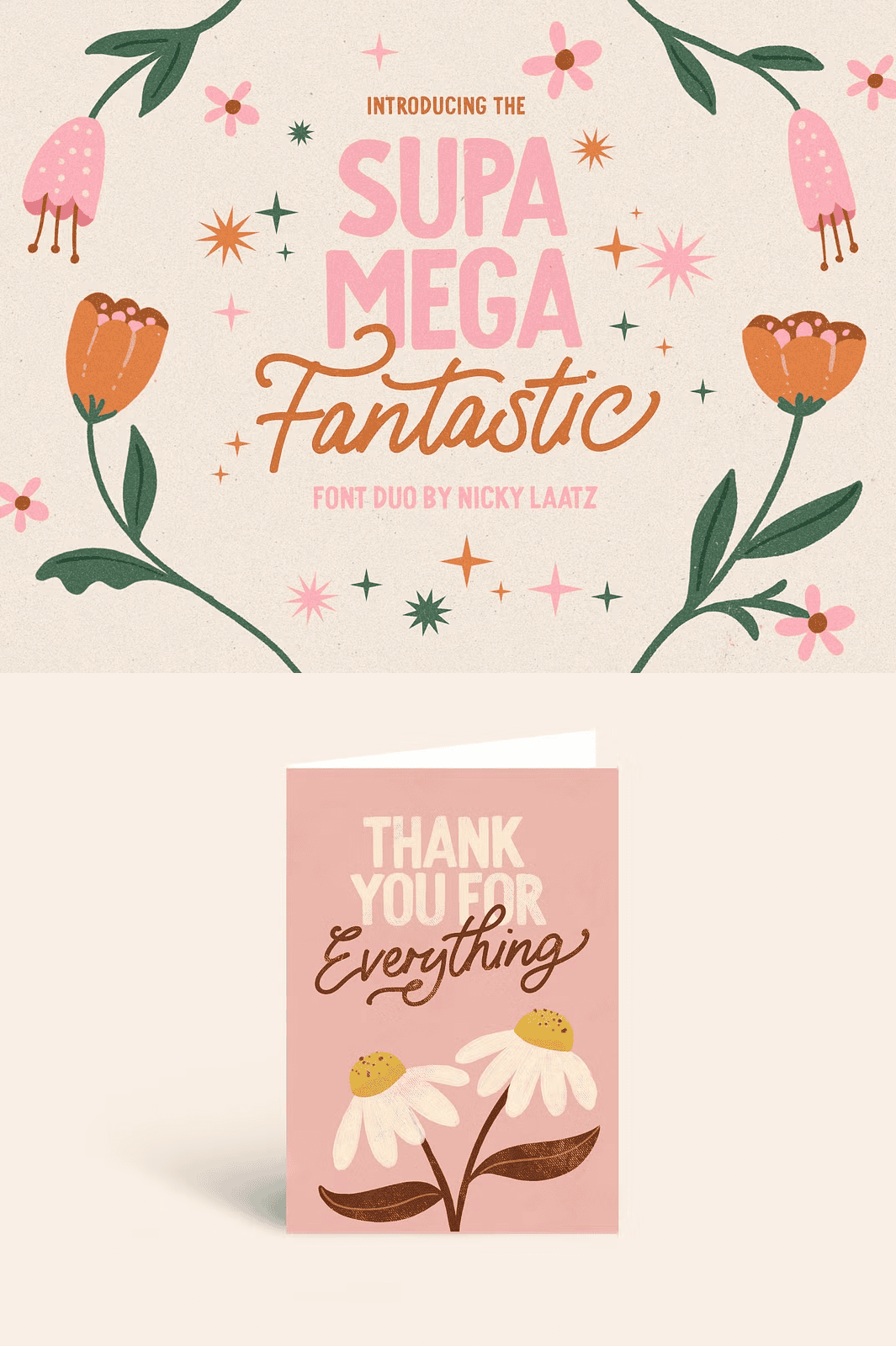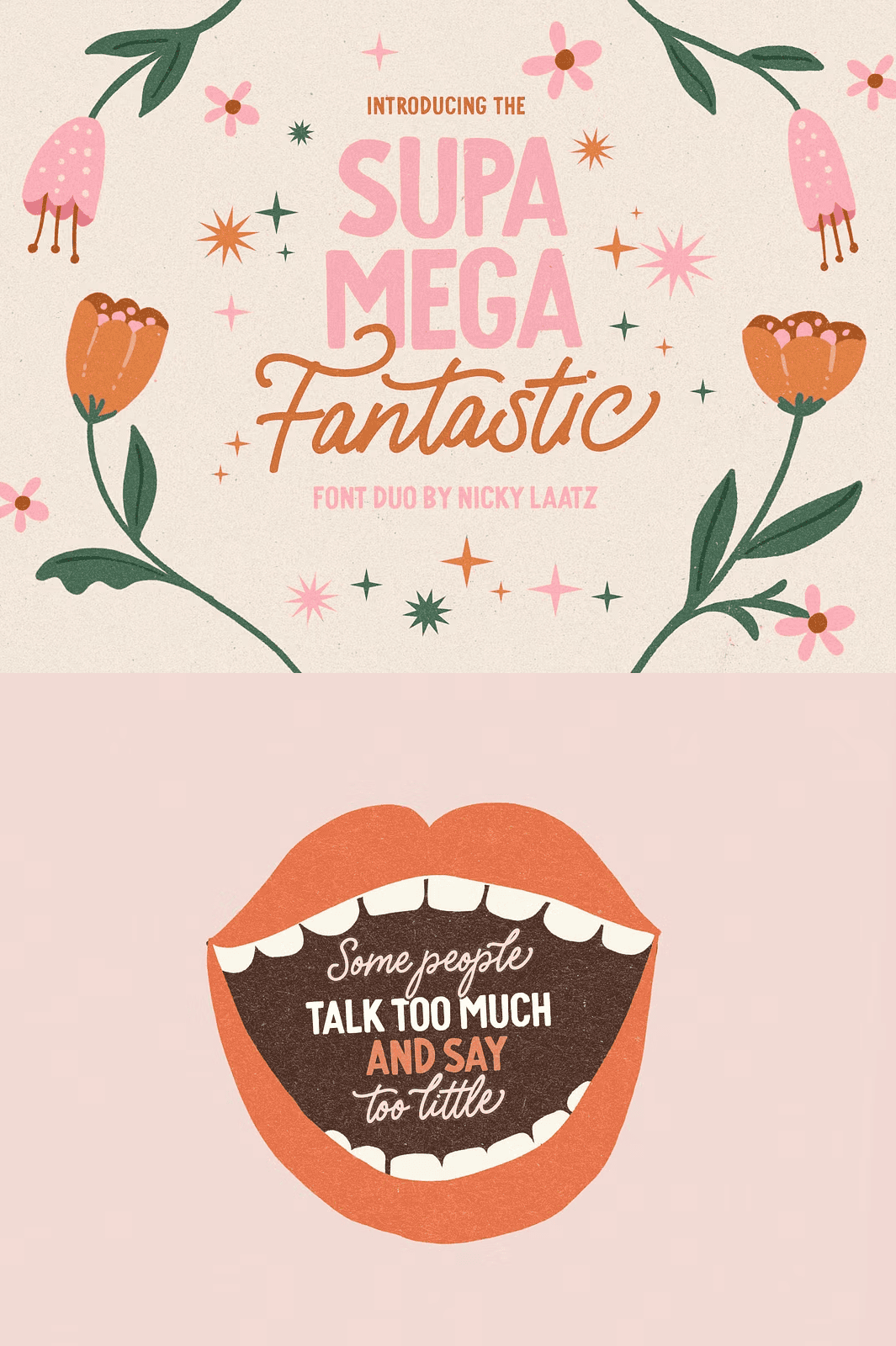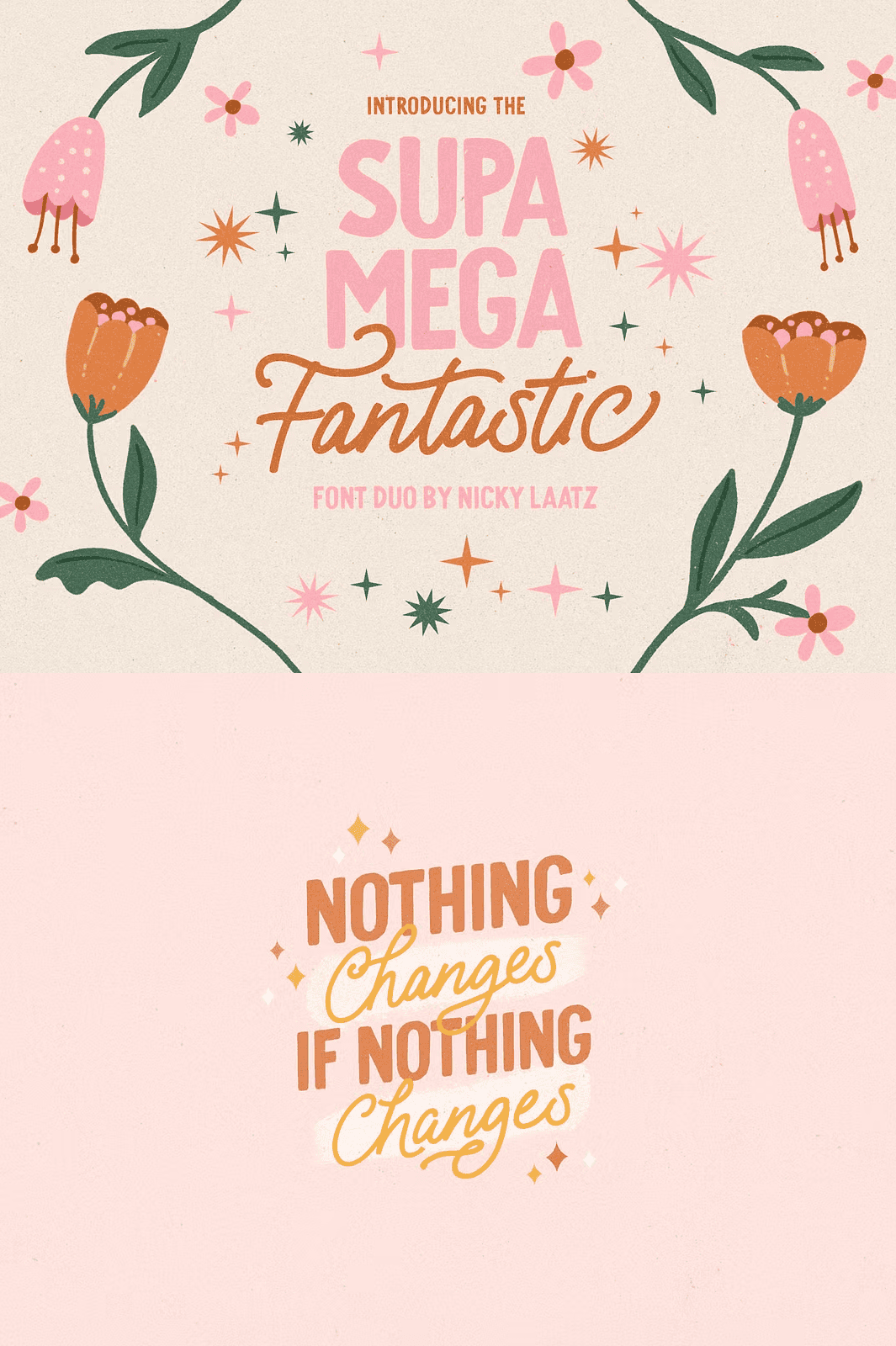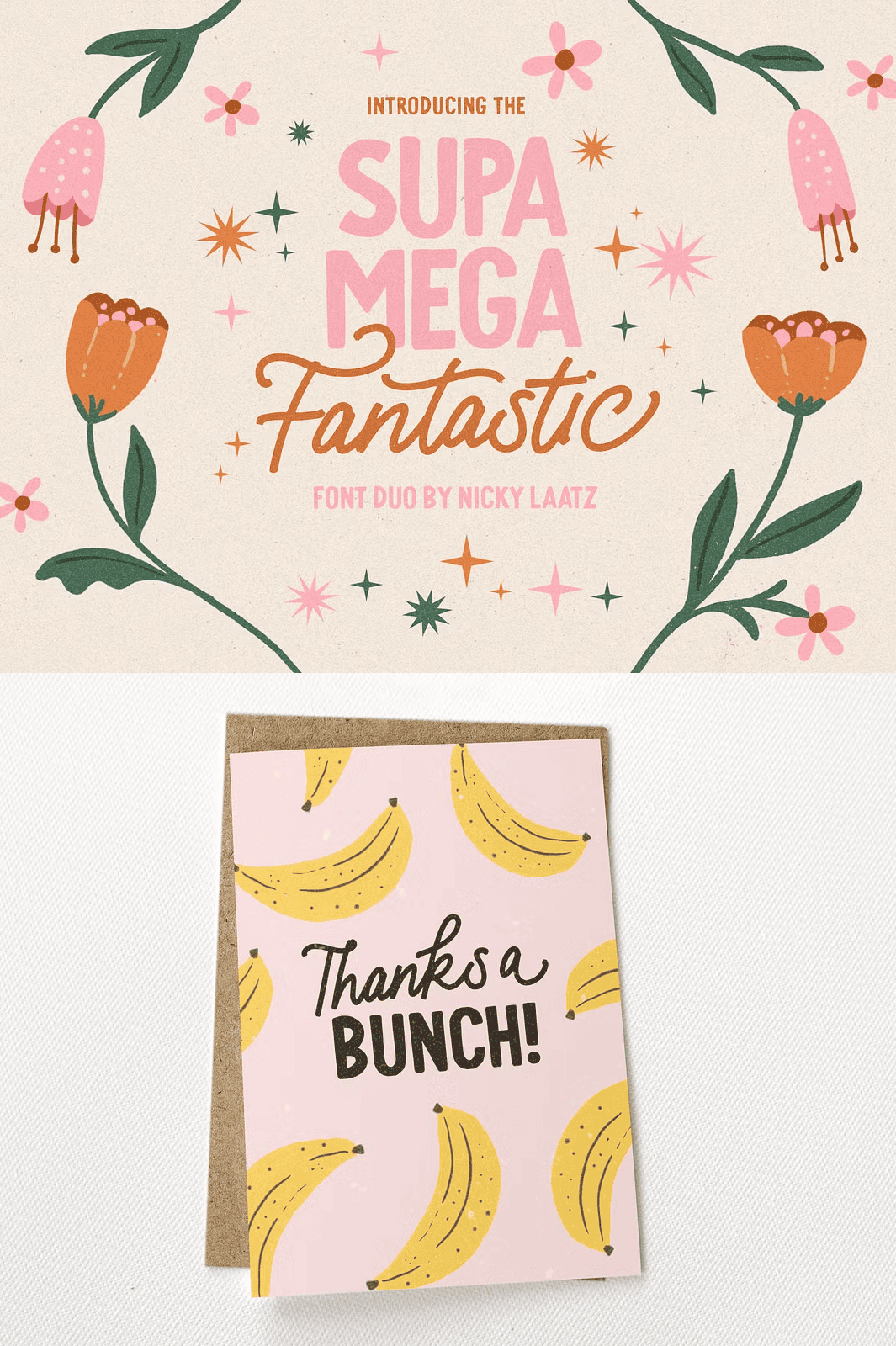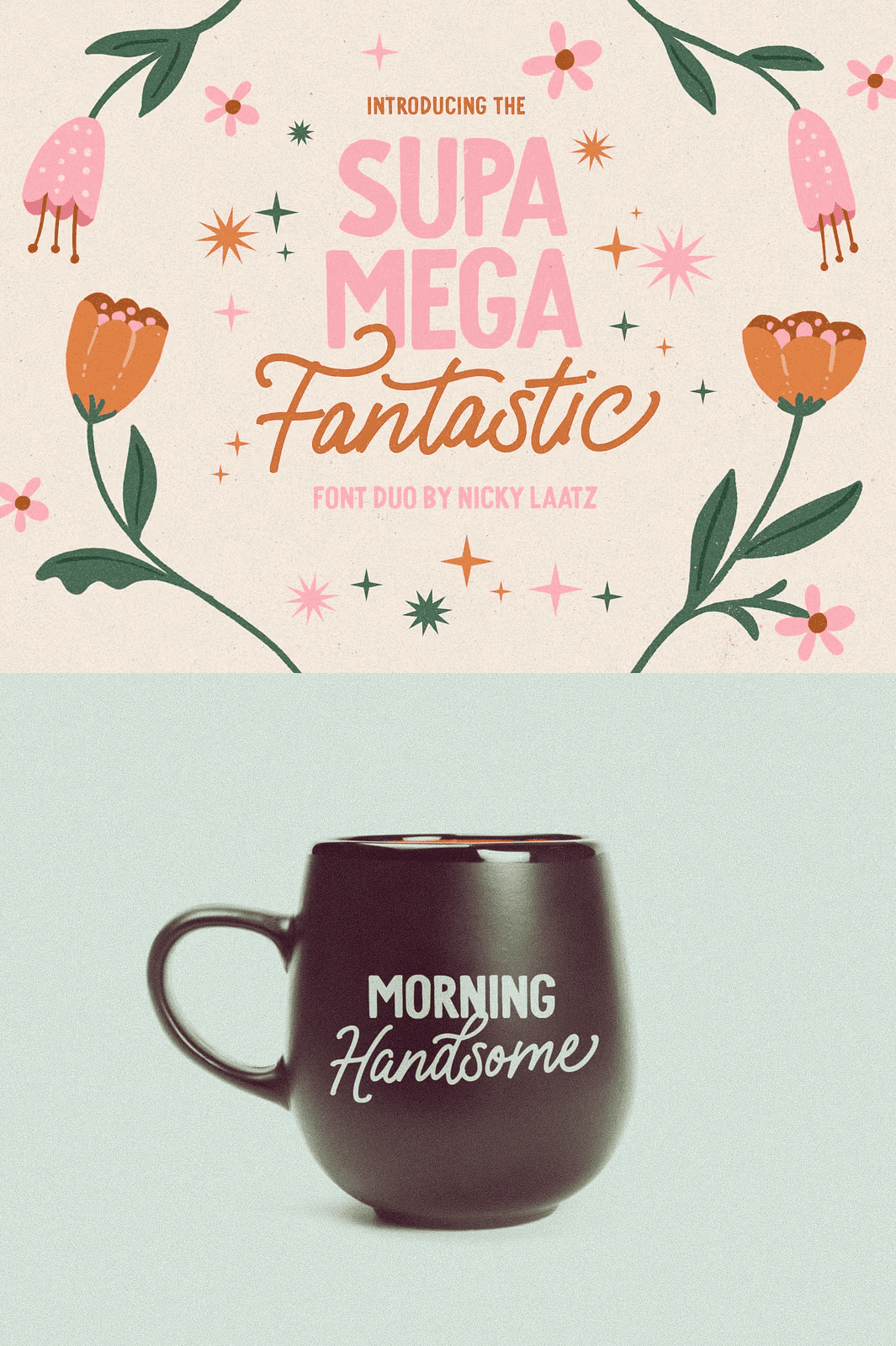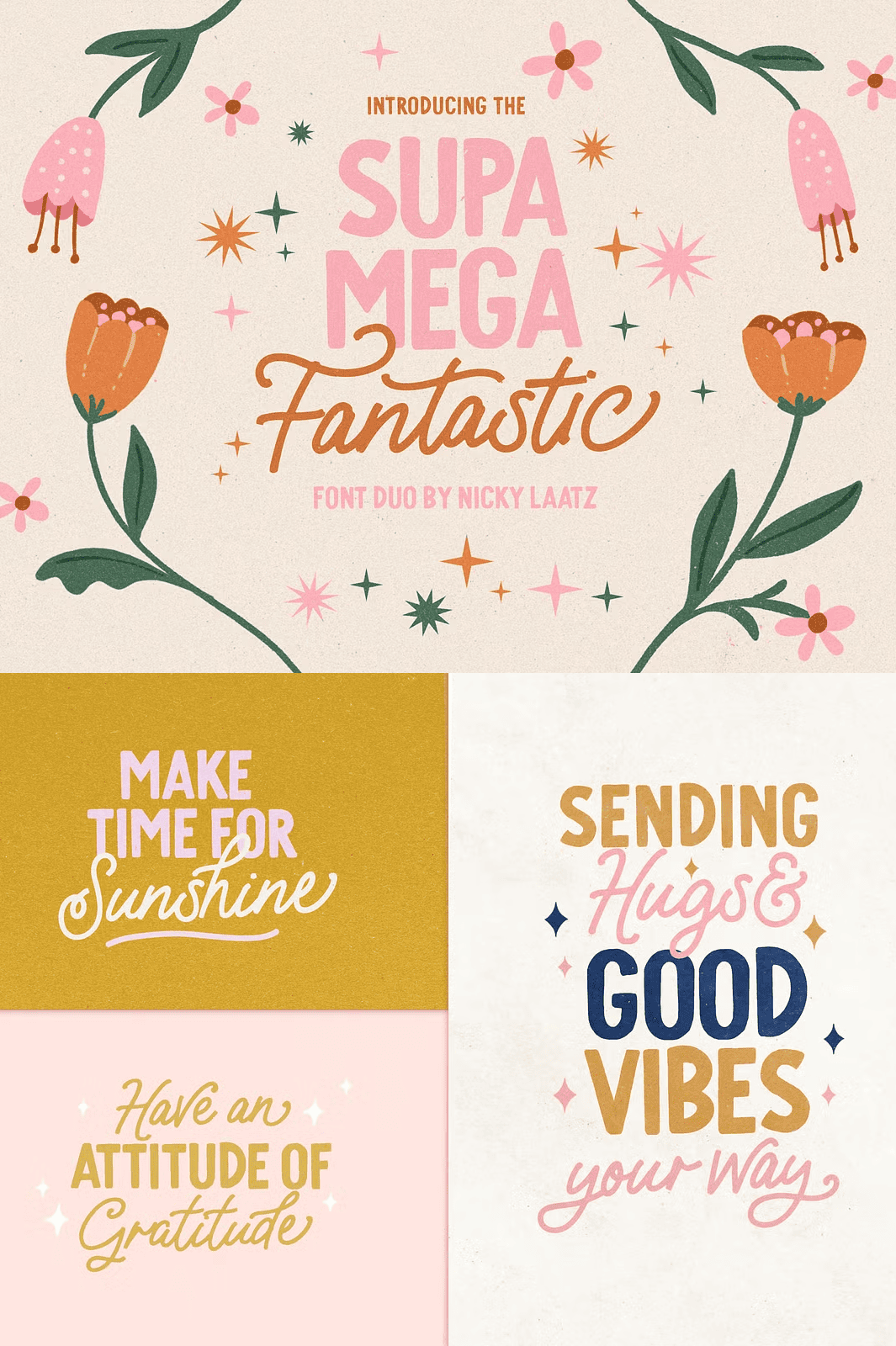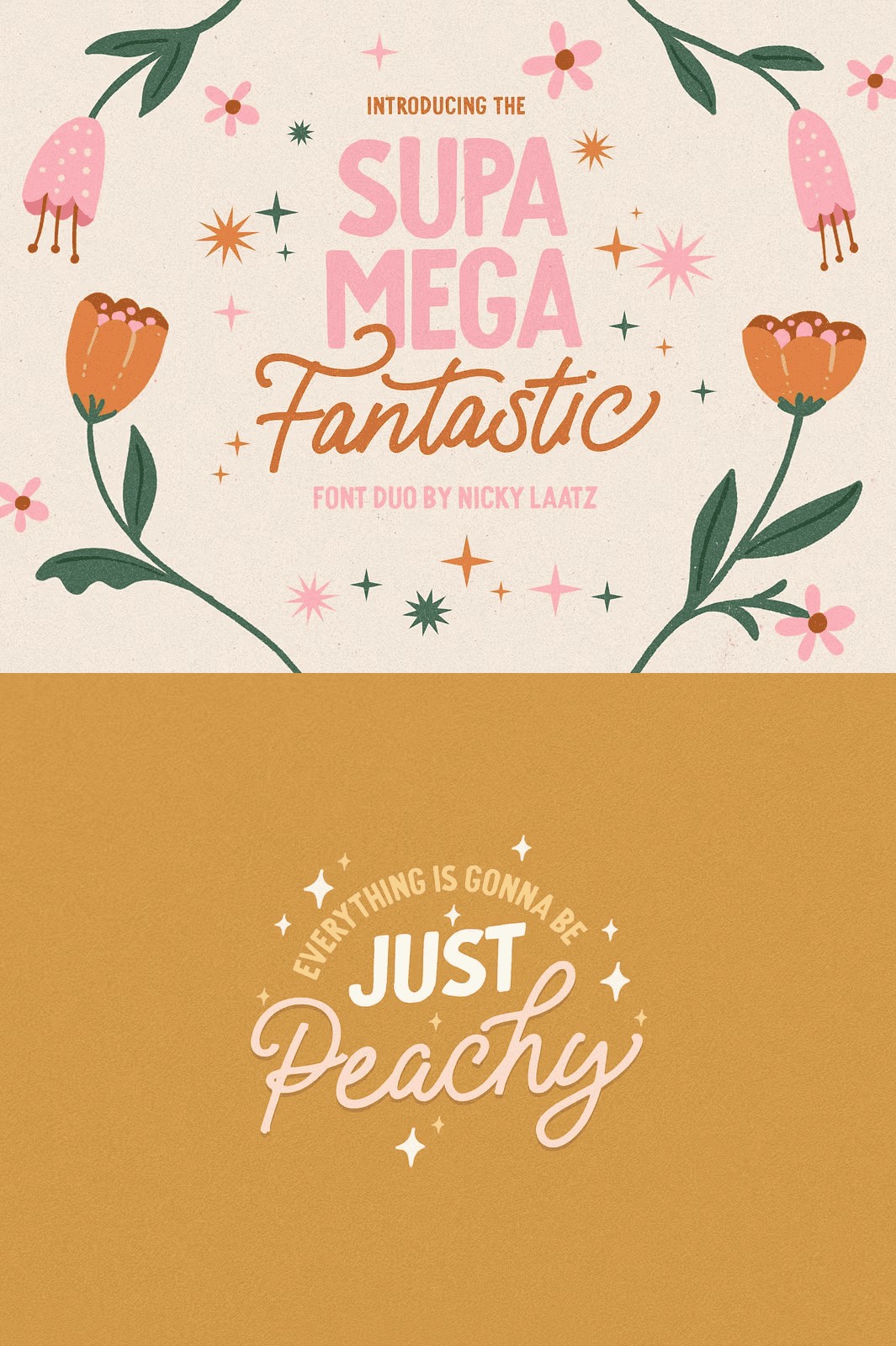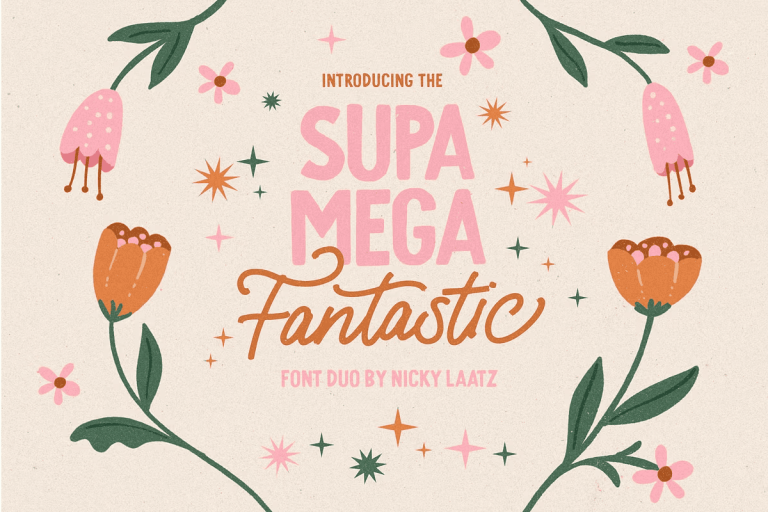
Meet the Duo That Delivers Fun, Flair, and Functionality
Step into a world of bold expression and artistic freedom with **Supa Mega Fantastic Font Duo** a dynamic pair of hand-lettered typefaces crafted with the energy of a sign painter’s brush and the precision of digital design. This isn’t just a font it’s a creative revolution in typography.
One font brings a lively, monoline script with endless stylistic options. The other delivers chunky, all-caps power with maximum impact. Together, they form a versatile duo ready to elevate any project with charm, confidence, and personality.
Chock-Full of Alternates — Your Design, Your Rules
This font duo isn’t just fun it’s **feature-packed**. The **Supa Mega Fantastic Script** comes loaded with a rich variety of OpenType alternates, giving you total control over your typographic voice:
– **Fancy alternates for every uppercase letter** — turn a simple “A” into a standout design element.
– **Multiple lowercase variants** — mix and match for rhythm, texture, and visual interest.
– **Two distinct weights** — a slightly thinner version for light-on-dark contrast, and a bolder version for high-visibility statement pieces.
Use them to craft whimsical logos, quirky packaging, or elegant quote graphics the possibilities are endless.
Designed for Creatives Who Demand Style and Substance
Whether you’re building brand identities, designing birthday invitations, crafting social media graphics, or creating bold posters, this font duo brings **playful professionalism** to every project.
– ✨ Use the script for heartfelt messages, quotes, or vintage-inspired branding
– ✨ Combine it with the chunky sans-serif for high-energy headlines or social media banners
– ✨ Perfect for wedding stationery, children’s books, fashion labels, and lifestyle brands
Your fonts should reflect your personality. So make them **bold, beautiful, and unforgettable**.
Make Every Letter Pop with OpenType Power
Elevate your next project with a font duo that’s bold, expressive, and endlessly customizable.
– ✨ Two fonts for dynamic visual pairings
– ✨ Massive selection of OpenType alternates
– ✨ Two weights for optimal contrast and readability
– ✨ 12-language support for international design
– ✨ Ideal for branding, packaging, invitations, posters, and digital content